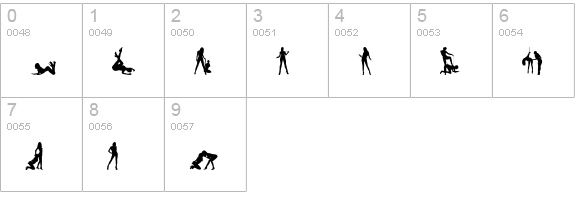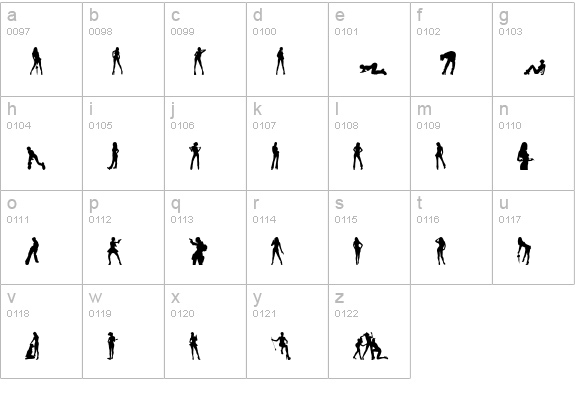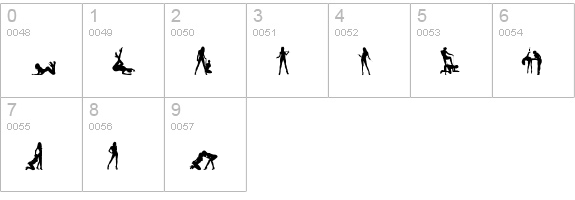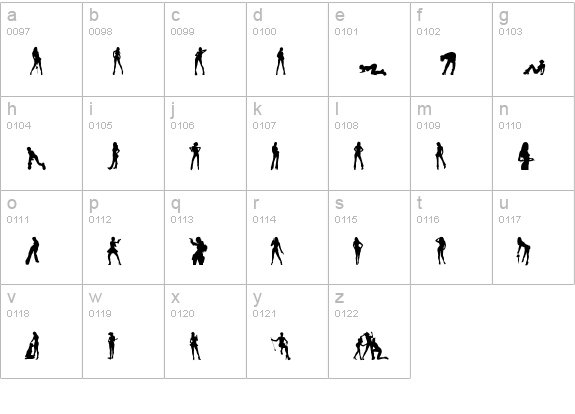
N0RP ICONS #1 font is a unique and eye-catching typeface that exudes creativity and modernity. With its sleek lines and stylish design, this font is perfect for a wide range of projects, from branding to advertising to editorial design. Each character is meticulously crafted to ensure a clean and polished look that will make your text stand out. What sets N0RP ICONS #1 font apart is not only its striking appearance but also the fact that it is available for free download on FontsMarket.com. This means you can access this high-quality font without any cost, making it a fantastic choice for designers and creatives looking to elevate their work without breaking the bank. Don't miss out on the opportunity to add N0RP ICONS #1 font to your font library today and take your projects to the next level with its modern and sophisticated style. Download it for free at FontsMarket.com and start creating stunning designs that will leave a lasting impression.